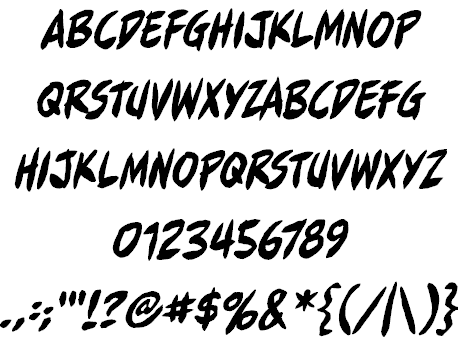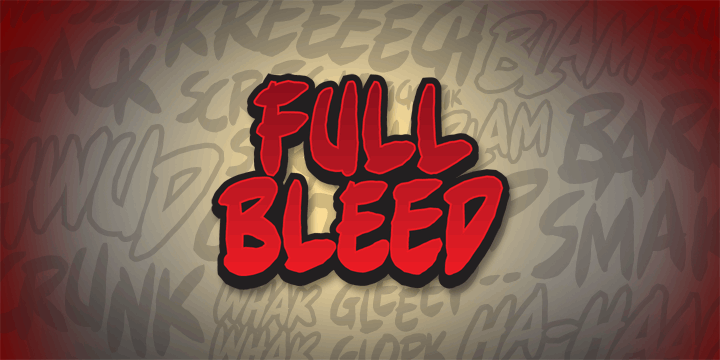
Full Bleed BB font family
This is the second is a series of three brush-inspired comic book fonts. FULL BLEED is sound effects font with differeing upper and lower characters and comes with regular and italic.